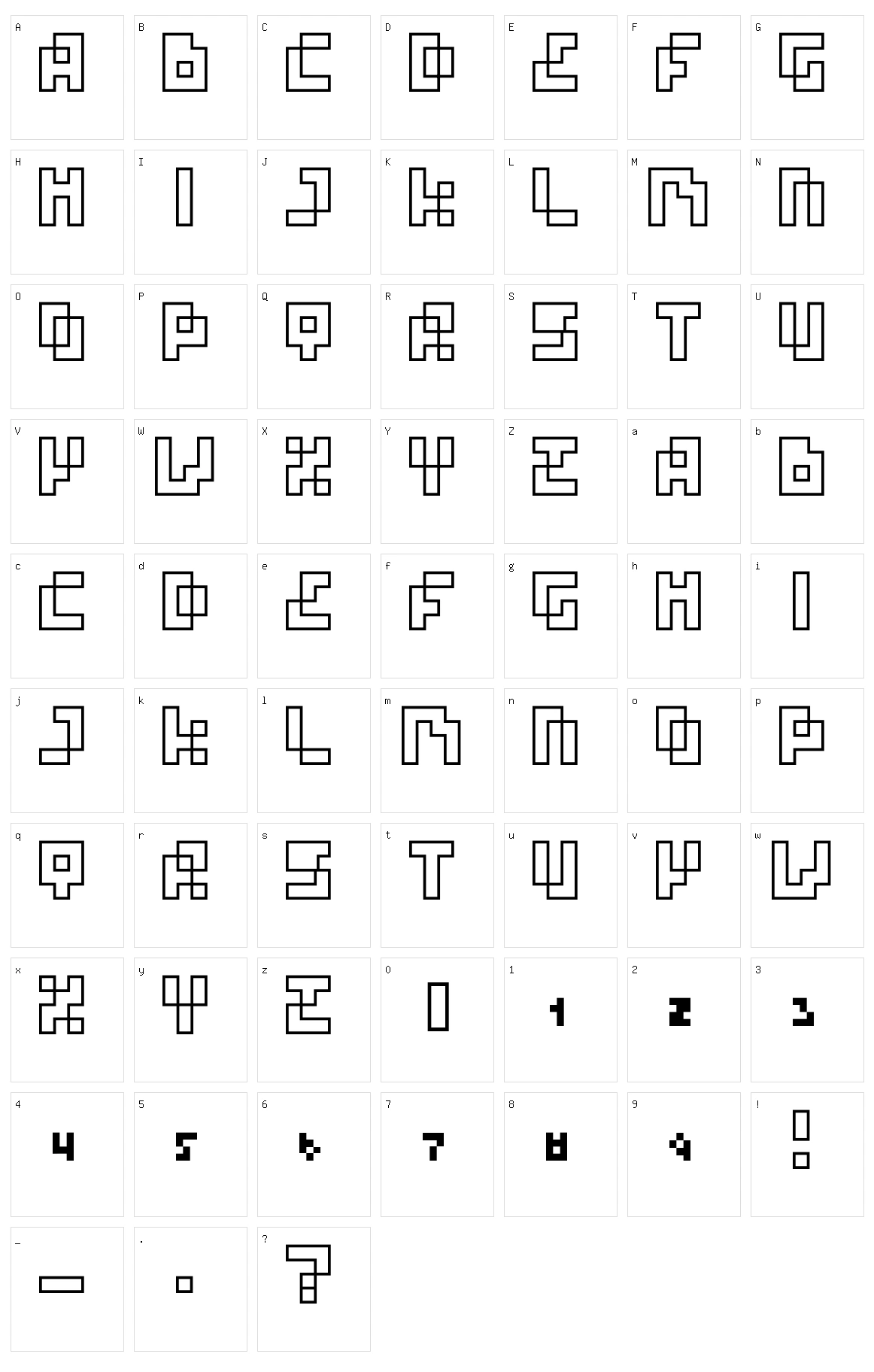
The free font Four Pixel Caps is carefully designed by museum-designer.com, showcasing a thoughtful balance of creativity and usability and falls under the Square font style. When you download the ZIP file, it contains only 2.84 KB of font files, making it lightweight and quick to download. Please review the license details below to understand permitted usage and distribution rights. If license information is not available, we recommend using this font for personal projects only or contacting the author directly for commercial usage permissions.